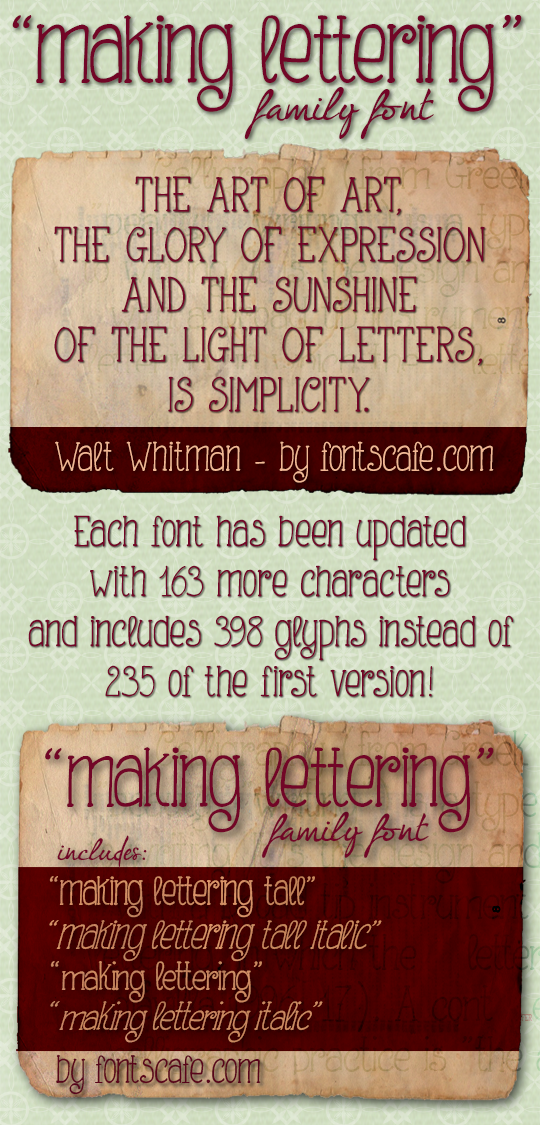
Making Lettering is fancy serif hand-drawn font realized with the simplicity of a single marker pen. Its cheerful irregularities and its fresh and fancy look are the distinctive characteristics of this font that make it perfect in projects where the "handmade, natural and friendly" feelings are required. Now updated with a new set of characters, Making Lettering font is part of a family of 4 that worths absolutely the time of a look! Check it out with the other 3 of family here https://fontscafe.com/fonts-packages/making-lettering-family Terms of Use (short version): It's okay to use this DEMO version of Making Lettering font for personal, non-commercial uses like designing greeting cards, invitations, labels, posters and even to create graphics for your personal blog. HOWEVER, if you decide to use this, or any other Fonts Caf� font for your business, please purchase a license: the prices are fair and you will be supporting a small, nice, independent font company. :) The typefaces we design and sell on our secure website are our livelihood. |